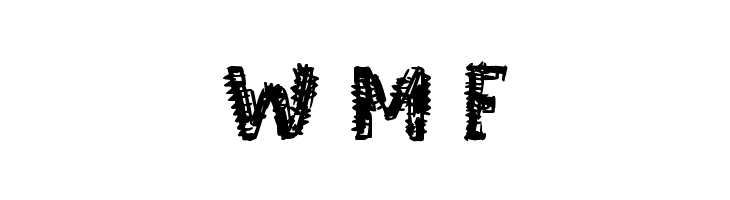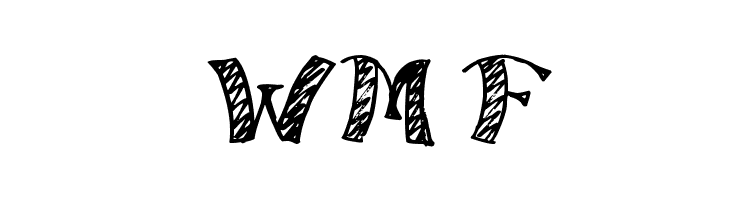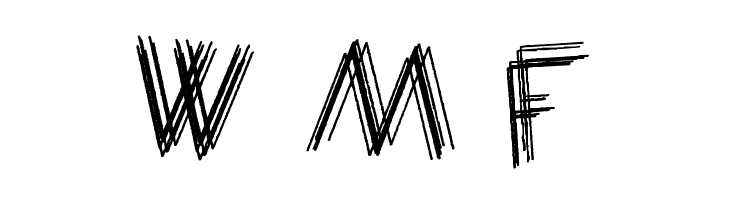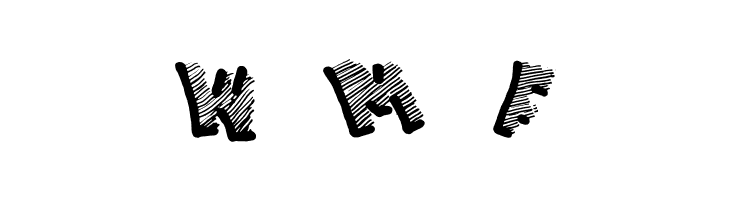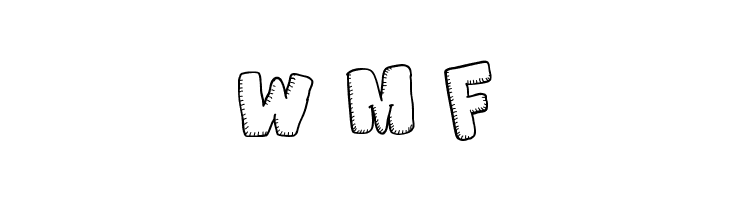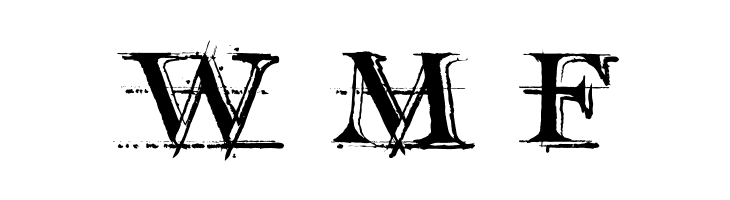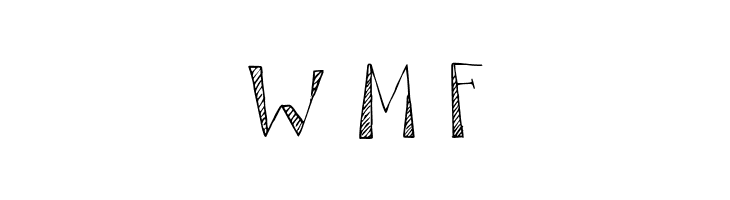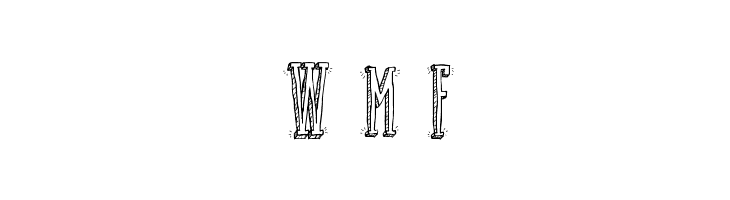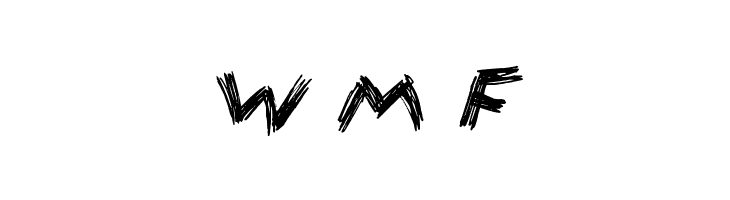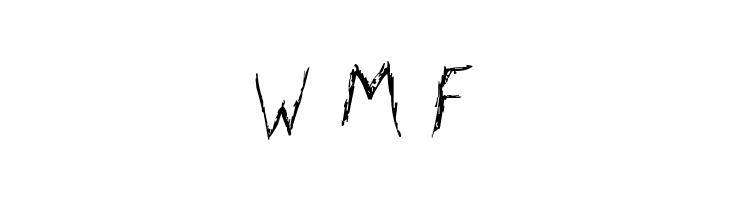
A bold, textured font with a hand-drawn, sketch-like appearance.
A playful, hand-drawn font with a bold, sketch-like texture.
A bold, hand-drawn font with textured, sketch-like strokes.
A bold, sketch-like font with a comic book style and textured appearance.
A playful, hand-drawn font with a sketch-like texture and dynamic strokes.
A bold, hand-drawn font with intricate line patterns and a sketch-like appearance.
A bold, hand-drawn font with a playful, sketch-like appearance.
A bold, hand-drawn font with a sketch-like texture and artistic flair.
A decorative, hand-drawn font with swirling, sketch-like strokes.
A hand-drawn, sketch-like font with rough, edgy strokes.
A chaotic, sketch-like font with a hand-drawn, energetic style.
A hand-drawn, sketch-like font with a casual and informal feel.
A playful, hand-drawn font with a sketch-like, double-line style.
A bold, 3D-effect font with sketch-like strokes and a playful, artistic style.
A playful, hand-drawn font with a sketch-like texture and bold outlines.
A playful, hand-drawn font with bold, rounded letters and a sketchy outline.
A bold, hand-drawn font with textured, sketch-like characters.
A playful, hand-drawn font with a whimsical and sketchy style.
A hand-drawn, sketch-like font with tall, narrow characters and a playful edge.
A bold, hand-drawn font with a rough, sketch-like appearance.
A playful, hand-drawn font with a scribbled, sketch-like appearance.
A bold, italic font with a textured, sketch-like appearance and strong decorative elements.
A handwritten font with clean, elongated lines reminiscent of architectural sketches.
A whimsical, hand-drawn font with tall, narrow letters and a natural, sketch-like style.